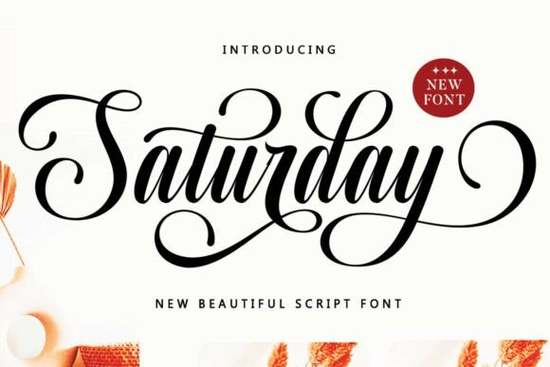
If you design invitations, logos, or packaging, you already know the struggle of finding a script font that feels both classic and fresh. Many script fonts lean too far into ornate curls that hurt readability or feel dated. Saturday Font solves that problem by blending elegant swashes with clean lines, so your text stays readable without losing that refined, feminine charm. Designed with careful attention to letter connections, this font handles formal projects like wedding suites and restaurant menus while still working for modern branding and social media graphics.
What makes Saturday Font different from other script fonts?
The key difference is in the character variation. Where many script fonts offer just one version of each letter, Saturday Font includes alternate glyphs and fancy letter connections. This means you can avoid the repetitive look that plagues basic script fonts. Each word can flow naturally, almost like hand-lettering, without the time investment of drawing every letter yourself. The classic style here isn't stiff or old-fashioned it carries a modern touch that feels at home on minimalist packaging or a trendy logo.
Who is this font actually for?
This font suits anyone who needs elegant typography without sacrificing readability. If you run a print-on-demand shop selling mugs or tote bags, the clear letterforms work well at small sizes. Wedding stationery designers will appreciate how the script behaves in long text blocks like ceremony programs or favor tags. Small business owners creating their own labels or signage can achieve a professional look without hiring a designer. Even hobbyists making greeting cards or bullet journal headers will find the character set generous enough for variety.
What project types work best with this font?
Because of its balanced weight and clear connections, Saturday Font performs well across many formats:
- Invitations and greeting cards – the elegant loops add a celebratory feel without overwhelming the layout.
- Restaurant menus – headers in this script catch the eye, while the readable body keeps the menu practical.
- Logos and branding – especially for fashion, beauty, and lifestyle brands where a feminine aesthetic fits.
- Stationery and novels – the font works for chapter titles, quotes, or cover typography.
- Social media graphics and advertising – clean enough for small screens, stylish enough to stop the scroll for creative audiences.
If you are working on a wedding or event suite, consider pairing Saturday Font with a clean sans serif for body text. The contrast between the script headers and a simple modern font keeps the design balanced.
How does this font compare to similar script fonts?
Within the script font category, Saturday Font sits in a sweet spot between ornate calligraphy and casual handwriting. It is more polished than Preppy Cute Font, which leans younger and more playful. Compared to Salty Dish Line Font, which has a rougher hand-drawn texture, Saturday feels smoother and more formal. For projects that need a romantic, flowing look without becoming fussy, this font delivers that specific balance.